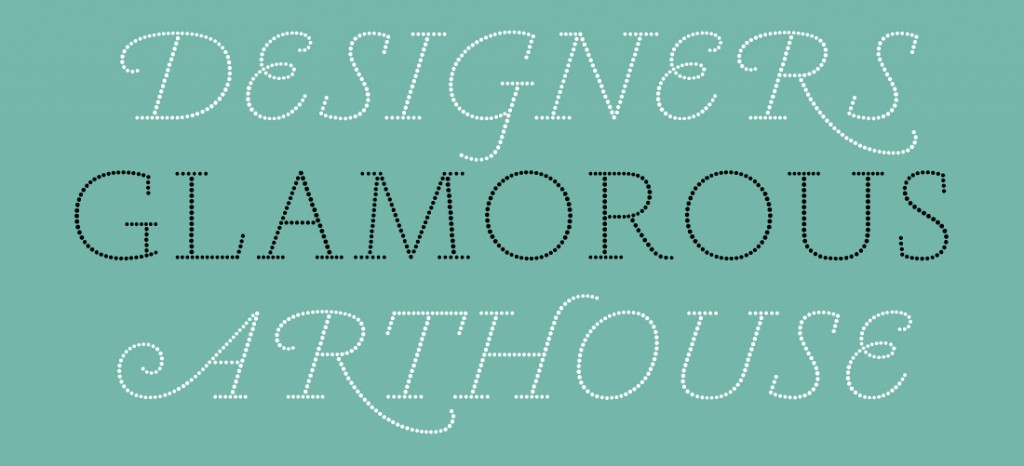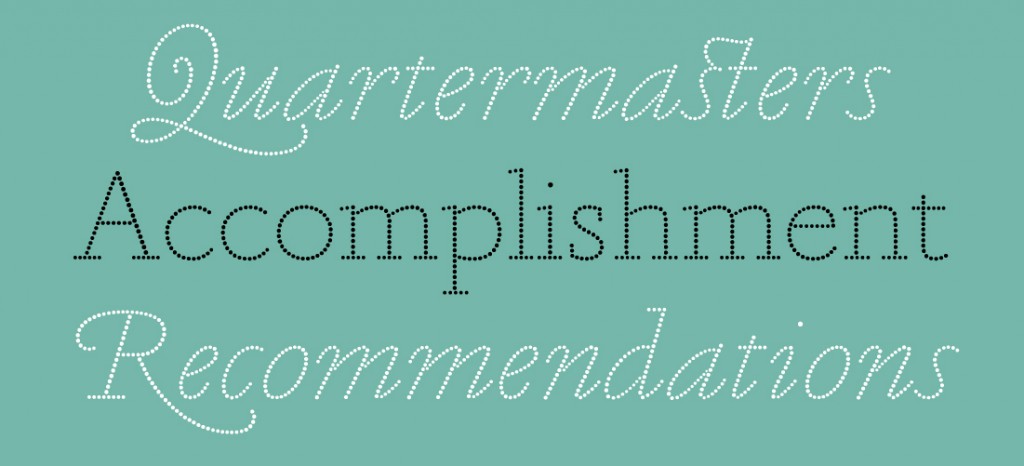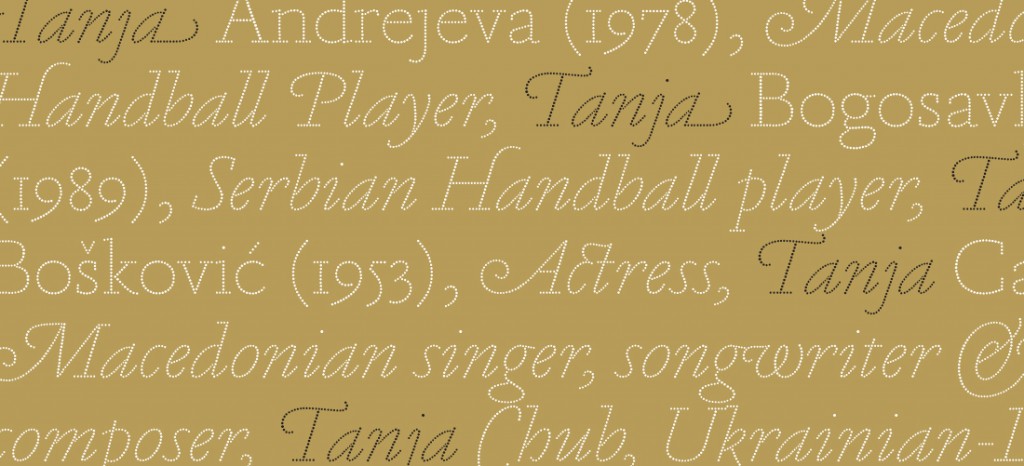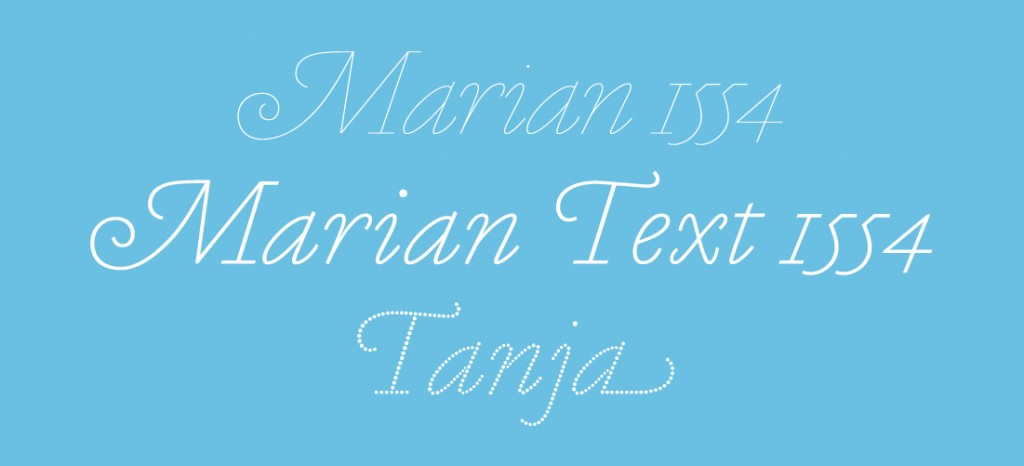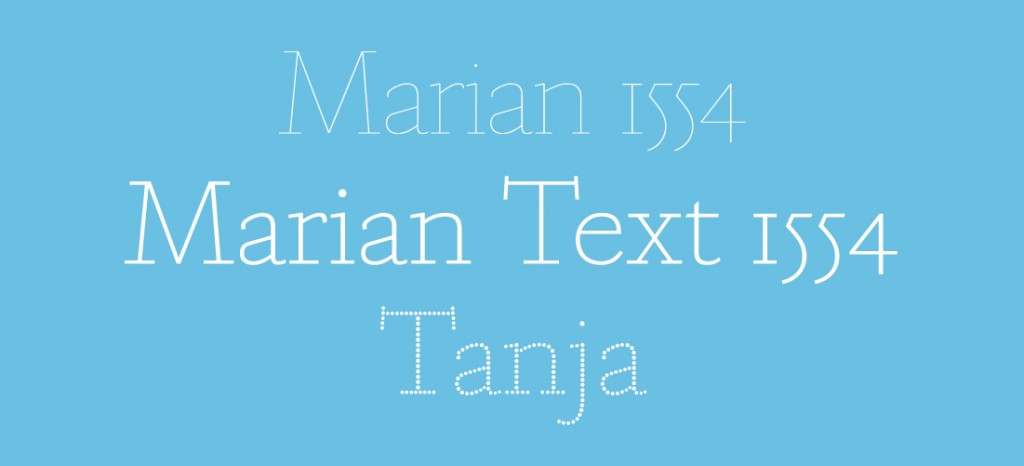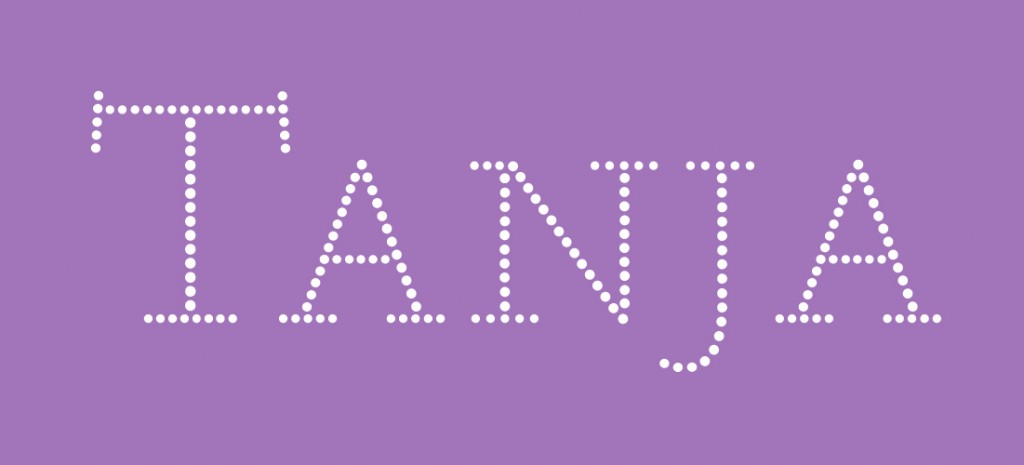
Name: Tanja
Designers: Paul Barnes and Christian Schwartz
Foundry: Commercial Type
Release Date: March 2016
Back story: Tanja, based on Commercial Type’s hairline Marian 1554, got its start from sketches for a corporate design project Barnes did for a German publisher in 2009. Like Marian, it owes a great deal to the Renaissance typefaces of Claude Garamond and Robert Granjon, but has its own contemporary aesthetic. According to Schwartz, Tanja “explores how something nuanced, complex, and beautiful can be made out of the simplest possible form: a circle. We were inspired, in part, by pearl necklaces,” he says.
“The typeface was developed with help from a proprietary tool built for the purpose by Frederik Berlaen, a brilliant designer and programmer living in Belgium. Frederik is responsible for Robofont, the main program we use to build our typefaces, but he’s also a genius at making little extensions that can speed up complicated and repetitive processes. With Tanja, we showed him an early sketch, and he made us an extension that allowed us to place dots on lines and curves. Even then, we had to manually tweak various dots to perfect the gentle variation of size.”
Why’s it called Tanja? It’s named for a friend of the designers, and it also works well with the name Marian upon which it’s based.
What are its distinguishing characteristics? Tanja is made up of dots, not by necessity (many dot-based typefaces exist to fulfill technical requirements such those as for dot matrix printers, or the Jumbotron at sports stadiums), but by an aesthetic and conceptual choice. And while it’s based on a simple idea, Tanja is quite complex; the dots don’t rely on an underlying grid structure, lending the characters a calligraphic fluidity. The dots also vary gradually in size to reflect the thickening and thinning of strokes, giving the letterforms graceful tapered ends and a sophisticated overall look.
What should I use it for? Designed as a display typeface for sizes above 30 point, where an element of surprise is needed, Tanja comes with a full complement of numeral styles, fractions, small capitals, swash letters, and ligatures. It has a lighthearted, delicate nature—handle with care.
Who’s it friends with? Marian 1554 (to state the obvious), but for fun try it with Narziss, with its ball terminals and options for swirly and swoopy ornamentation. If this starts to feel a bit much, retreat to the sanity of Bauer Bodoni.